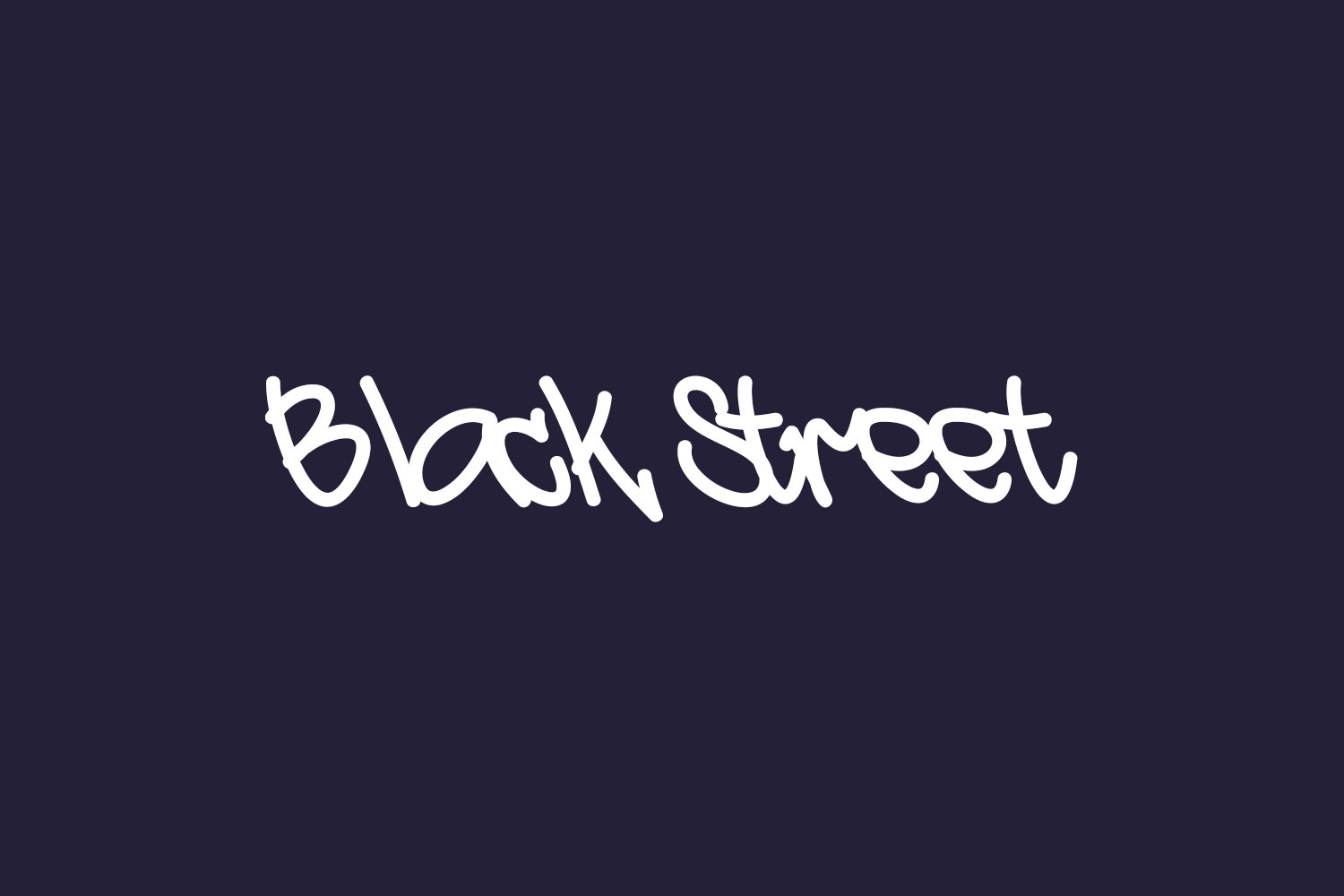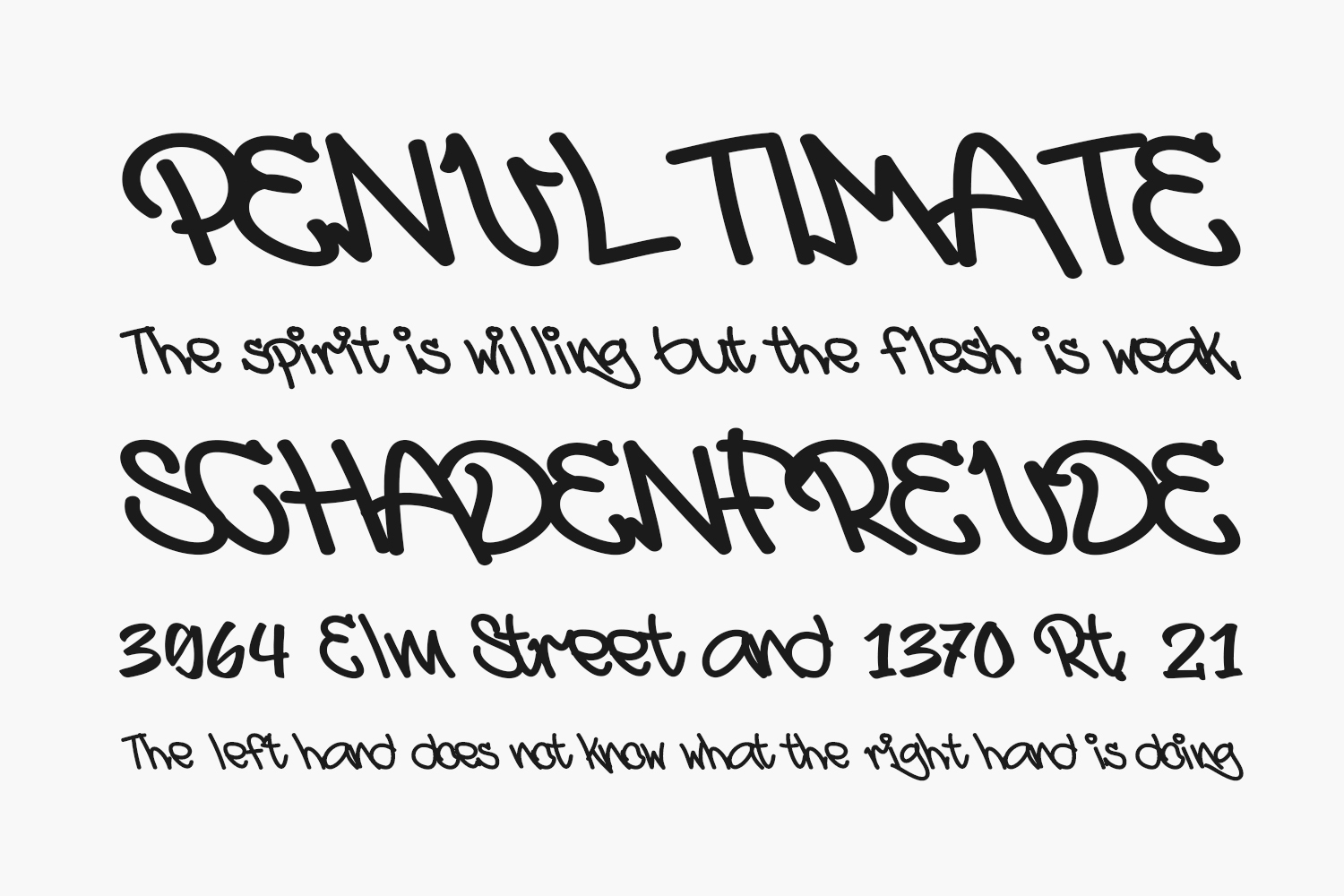
Black Street Free Font is a cool, graffiti styled display font. Add this font to each of your urban or street designs and they will instantly stand out. Black Street Free Font was designed by Esa Nugroho and is free for personal use only. Please purchase the full version for commercial use.